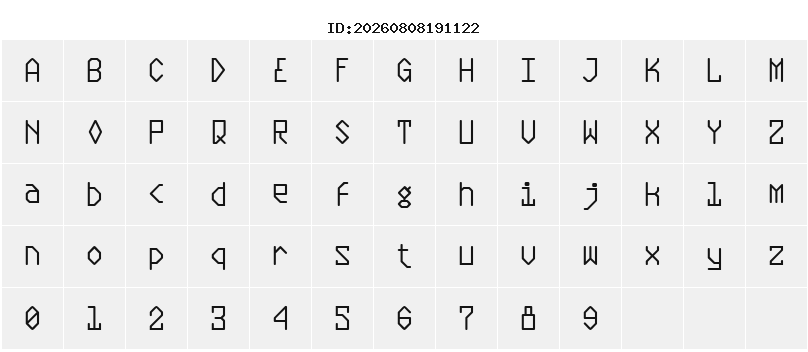
Plasmatic Preview
• Font Name: Plasmatic
About Plasmatic.ttf
Plasmatic.ttf is a modern, elegant sans-serif font designed for ultimate readability and visual harmony. Perfect for branding, headlines, web design, and print materials.